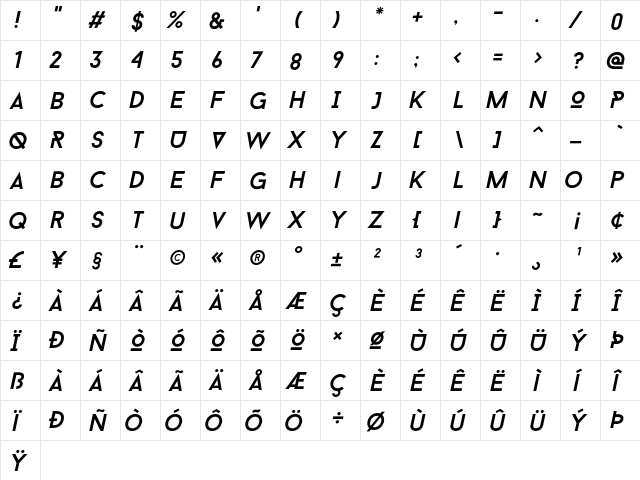
Baron Neue Italic
| Foundry | Frank Hemmekam |
| Designer | Frank Hemmekam |
Design Context for Baron Neue Typeface
Baron Neue offers clean, dependable letterforms without strong stylistic allegiance, making it a practical choice for designers who need flexibility. The dynamic lean of this cut emphasises speed and emphasis in any layout.
Pro Tip: Try Baron Neue for annotation and caption copy alongside an upright companion — the contrast in angle creates a dynamic but ordered typographic system.